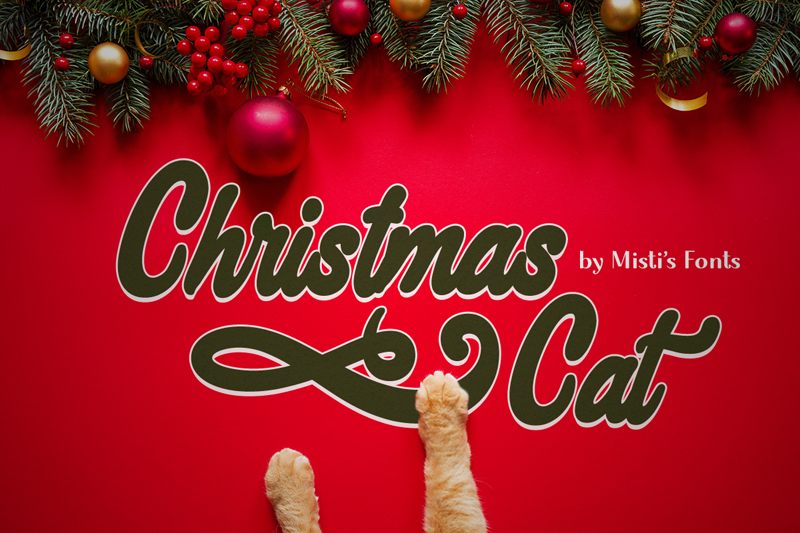
Font name: | Christmas Cat |
The Christmas Cat is cute and festive script font. This font is perfect for your festive crafts, such as Christmas cards, New Year�s invites, but also works great for making quotes, and sayings. It includes a wide range of swashes. Terms Of Use & Commercial Licensing: https://mistifonts.com/christmas-cat/ |